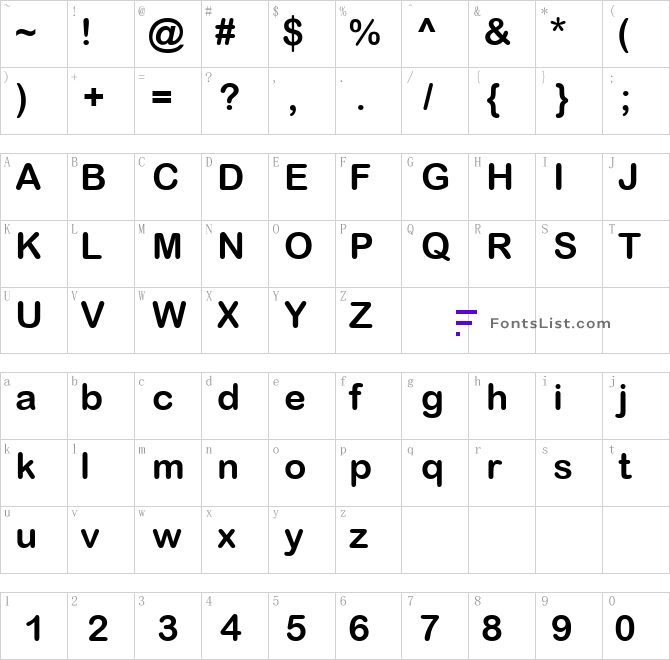
- Font Name:Arial Rounded MT Bold
Arial-Rounded-MT-Bold-copy-4-.ttf is a very beautiful artistic font, Arial-Rounded-MT-Bold-copy-4-.ttf is widely used in the design and printing of various books and pictures,Arial-Rounded-MT-Bold-copy-4-.ttf has a strong visual impact,Arial-Rounded-MT-Bold-copy-4-.ttf is a commonly used font in newspapers, magazines and books, and is used in posters, e-commerce Poster design, store design, logo design, font design and other fields.Arial-Rounded-MT-Bold-copy-4-.